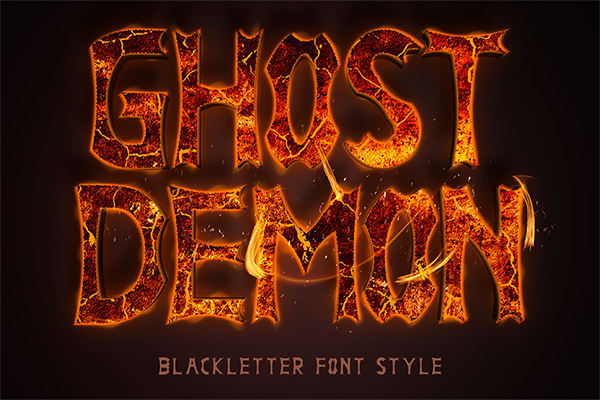
Rock Thorn – Display Font is an all-capital font that is inspired by fantasy characters, highlighting the boldness of each letter, suitable for headlines and titles.
- AuthorIdeal Eksis